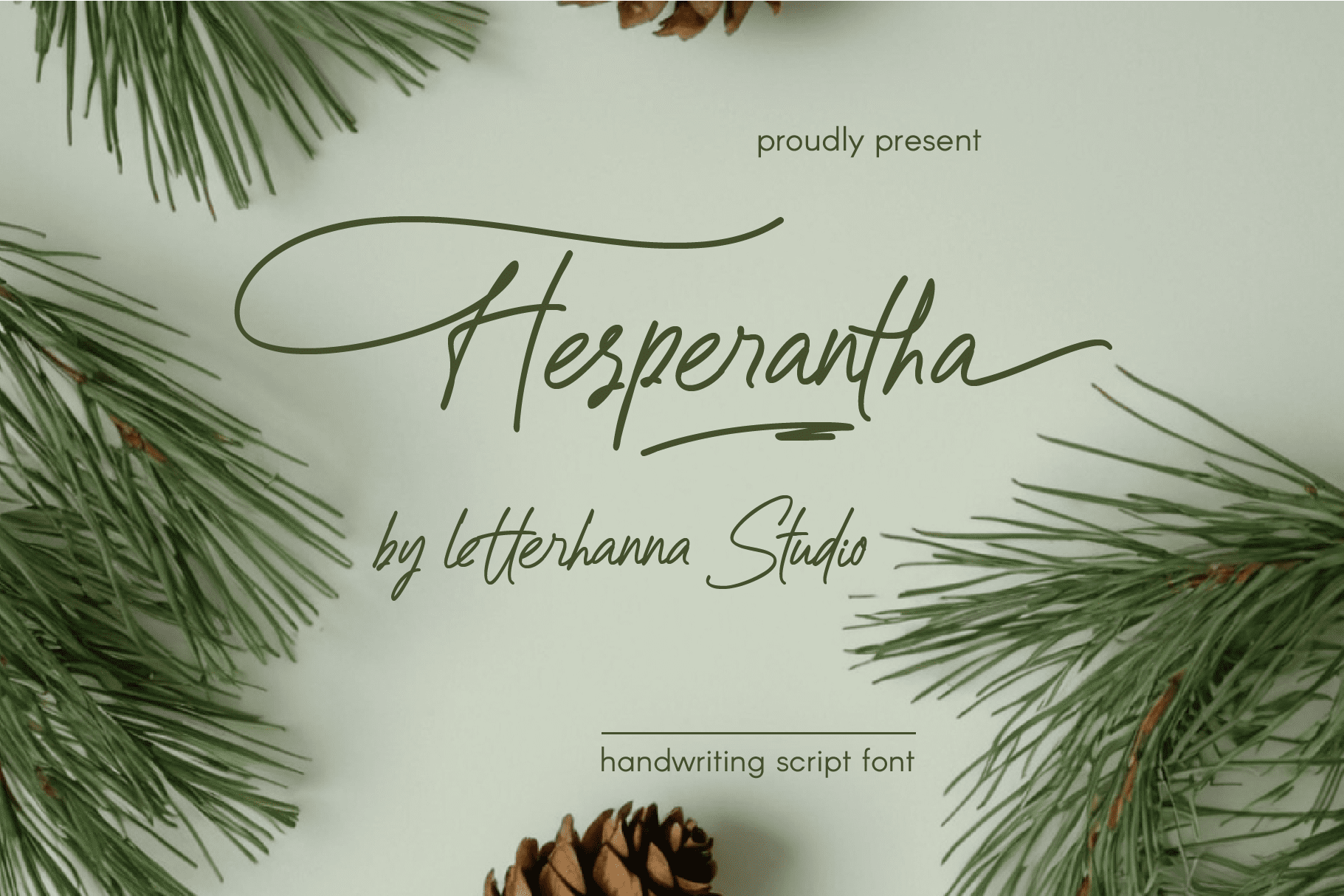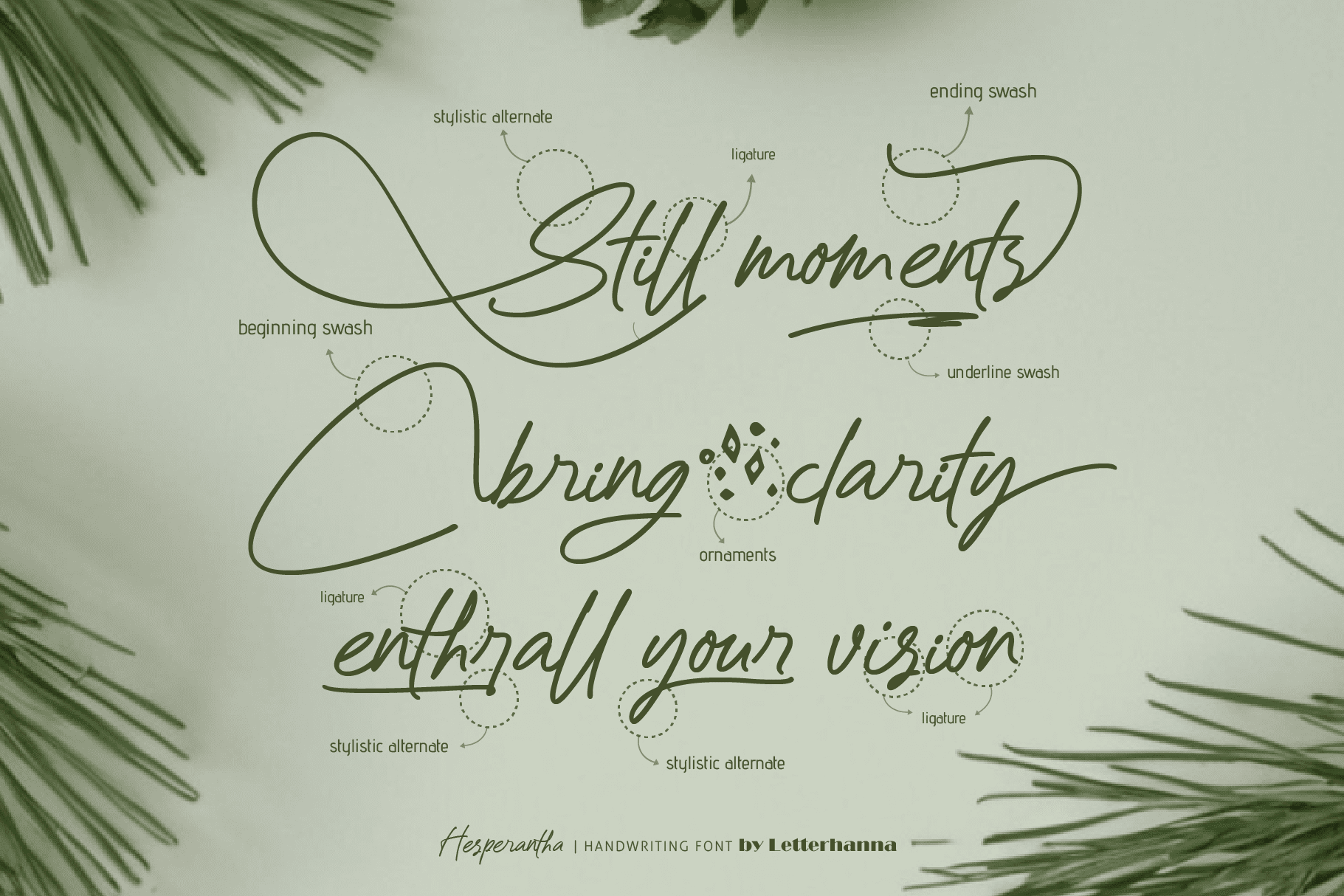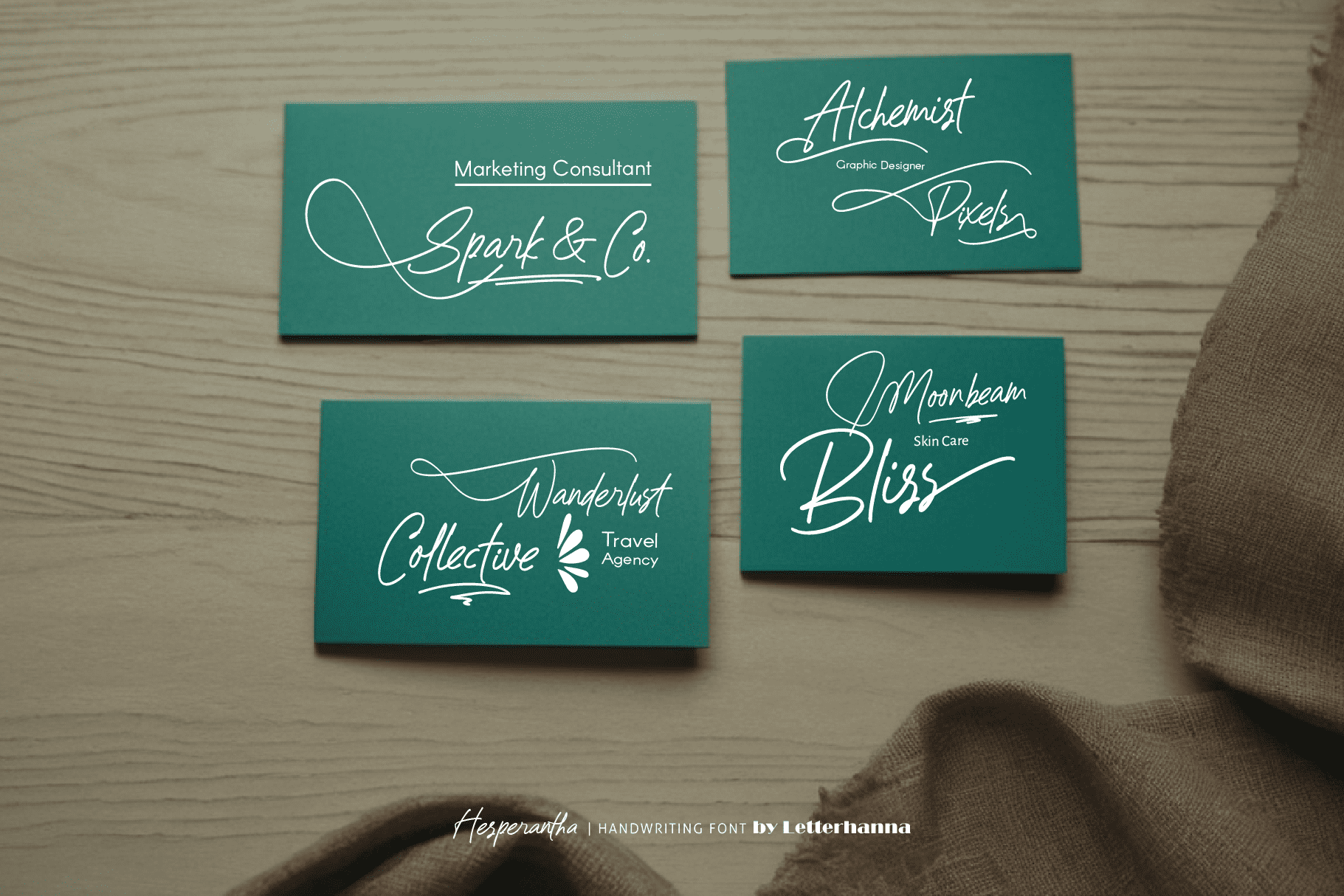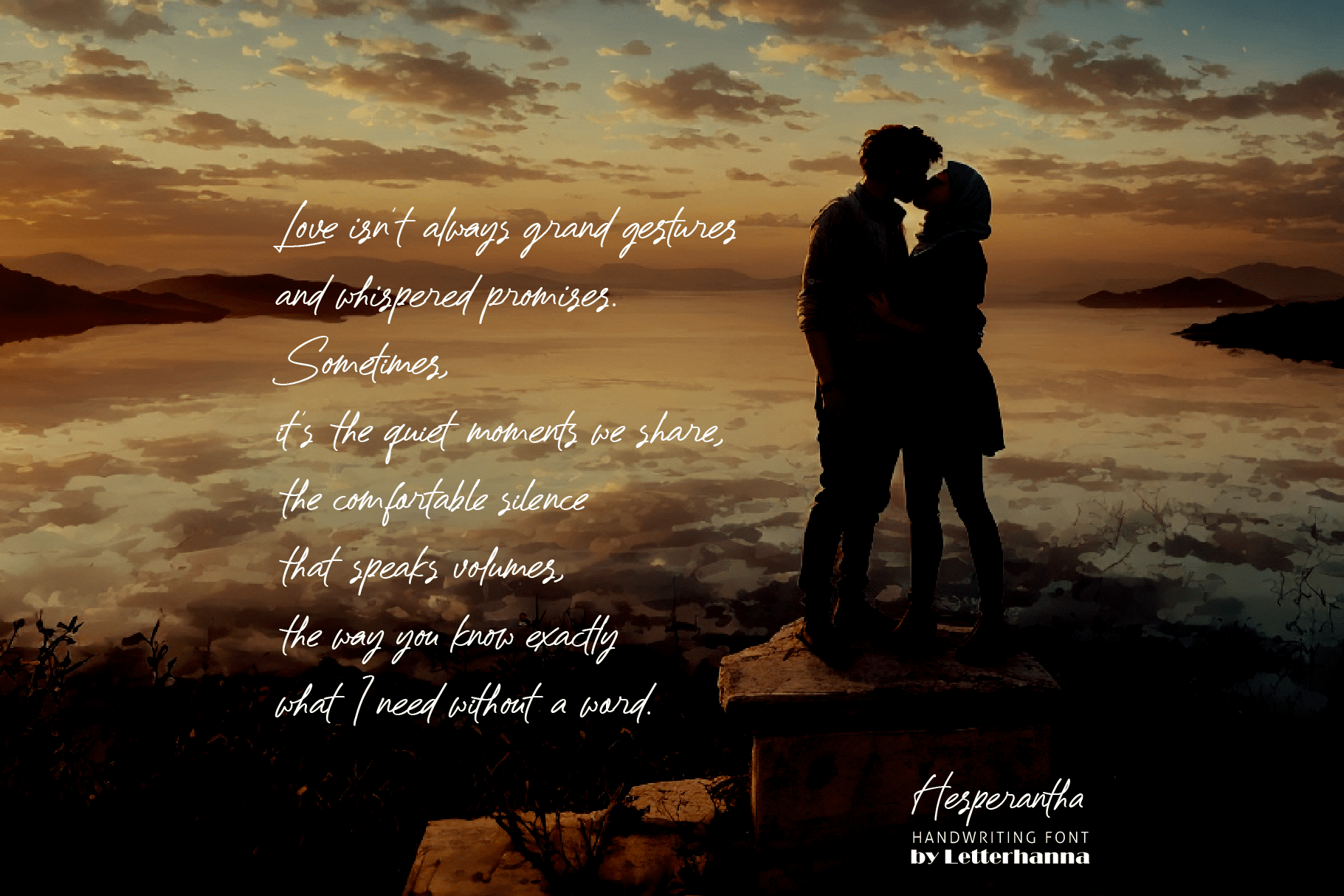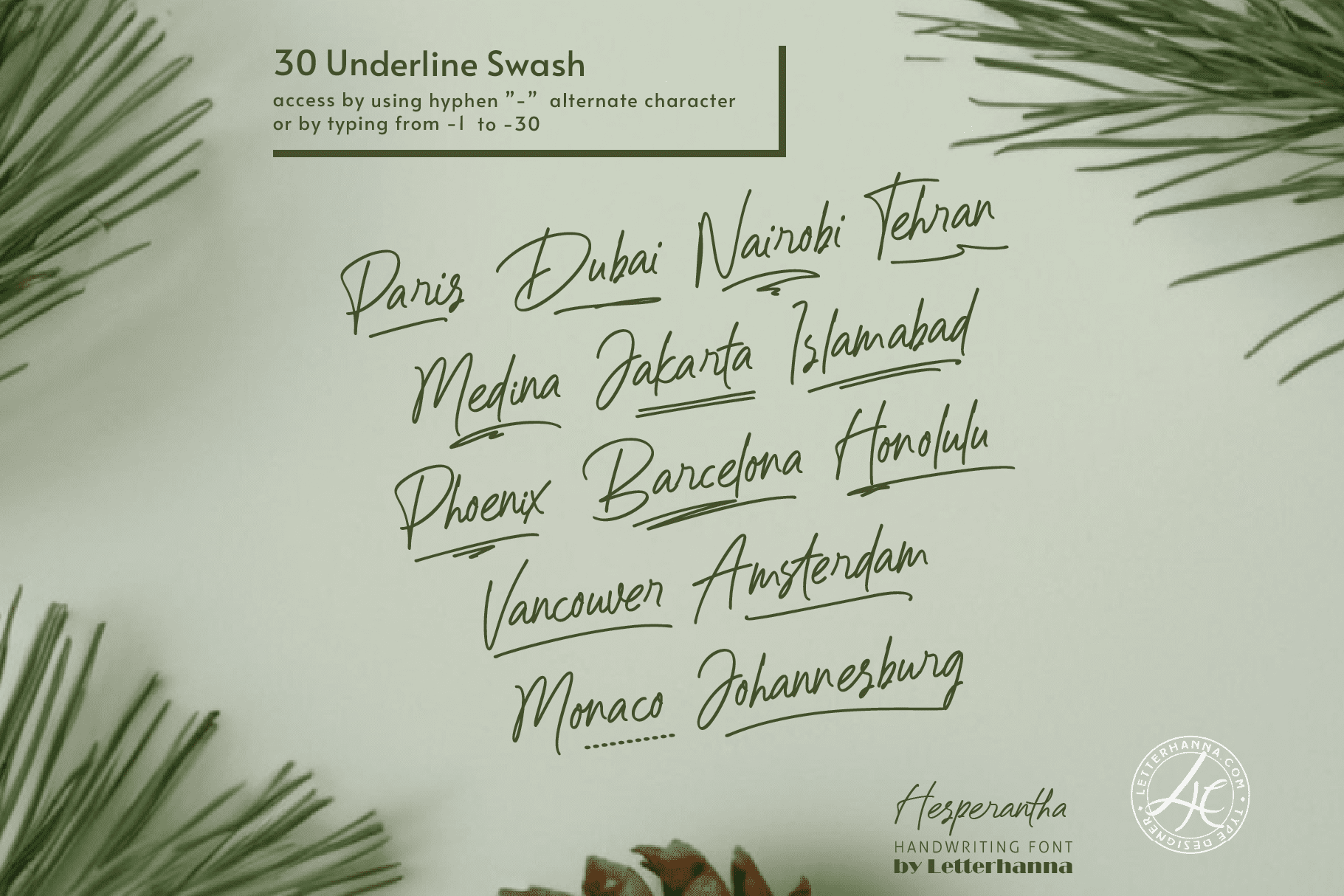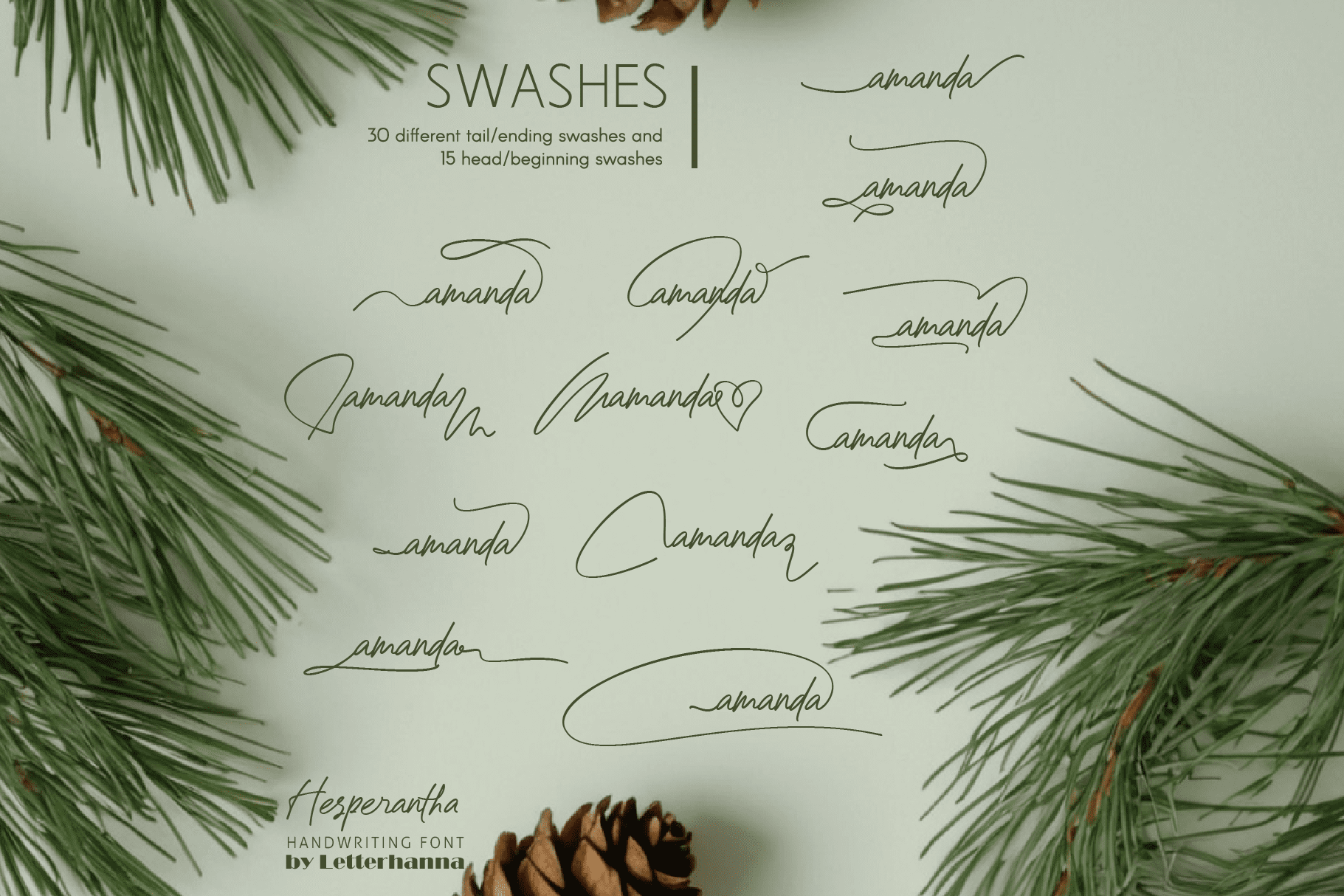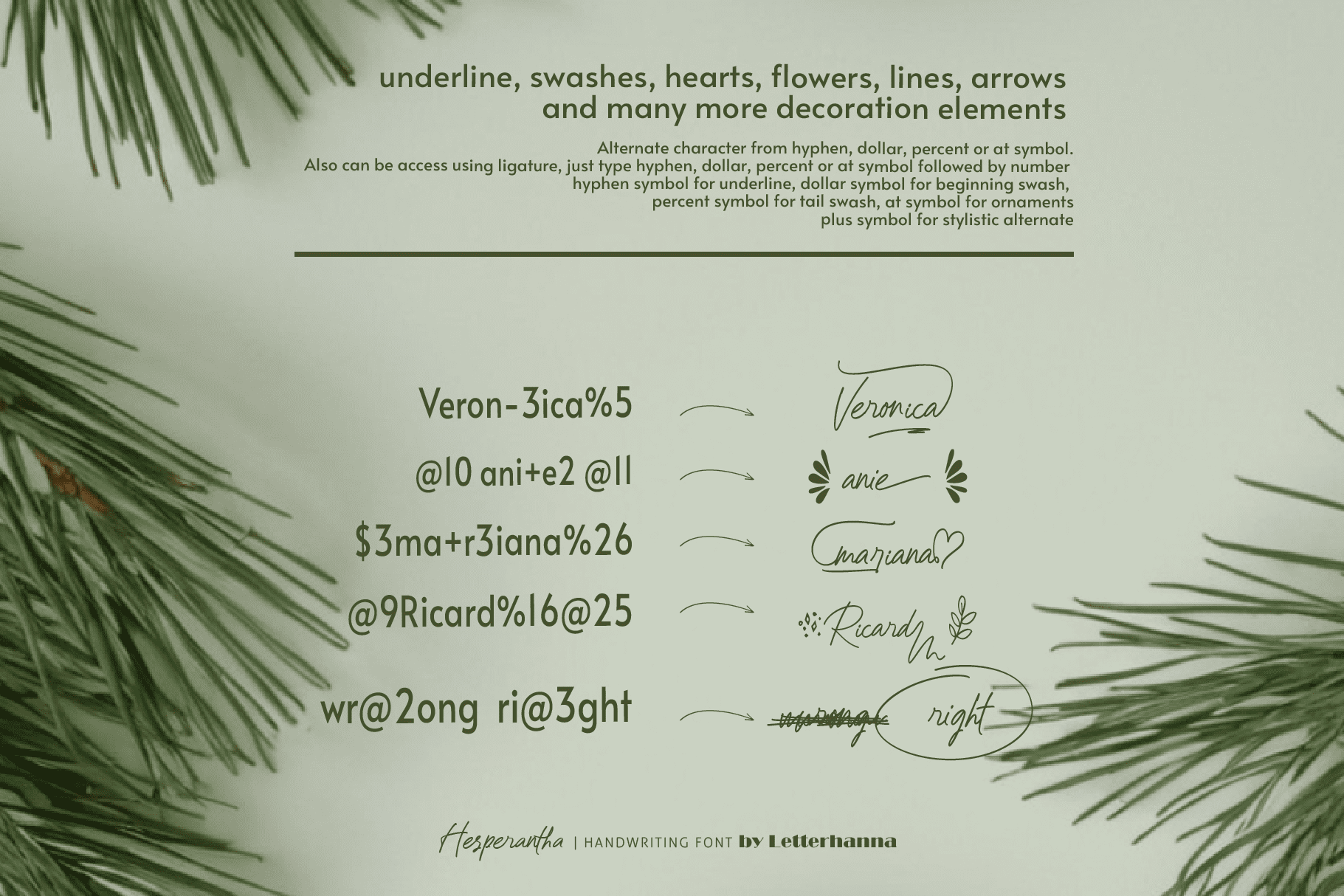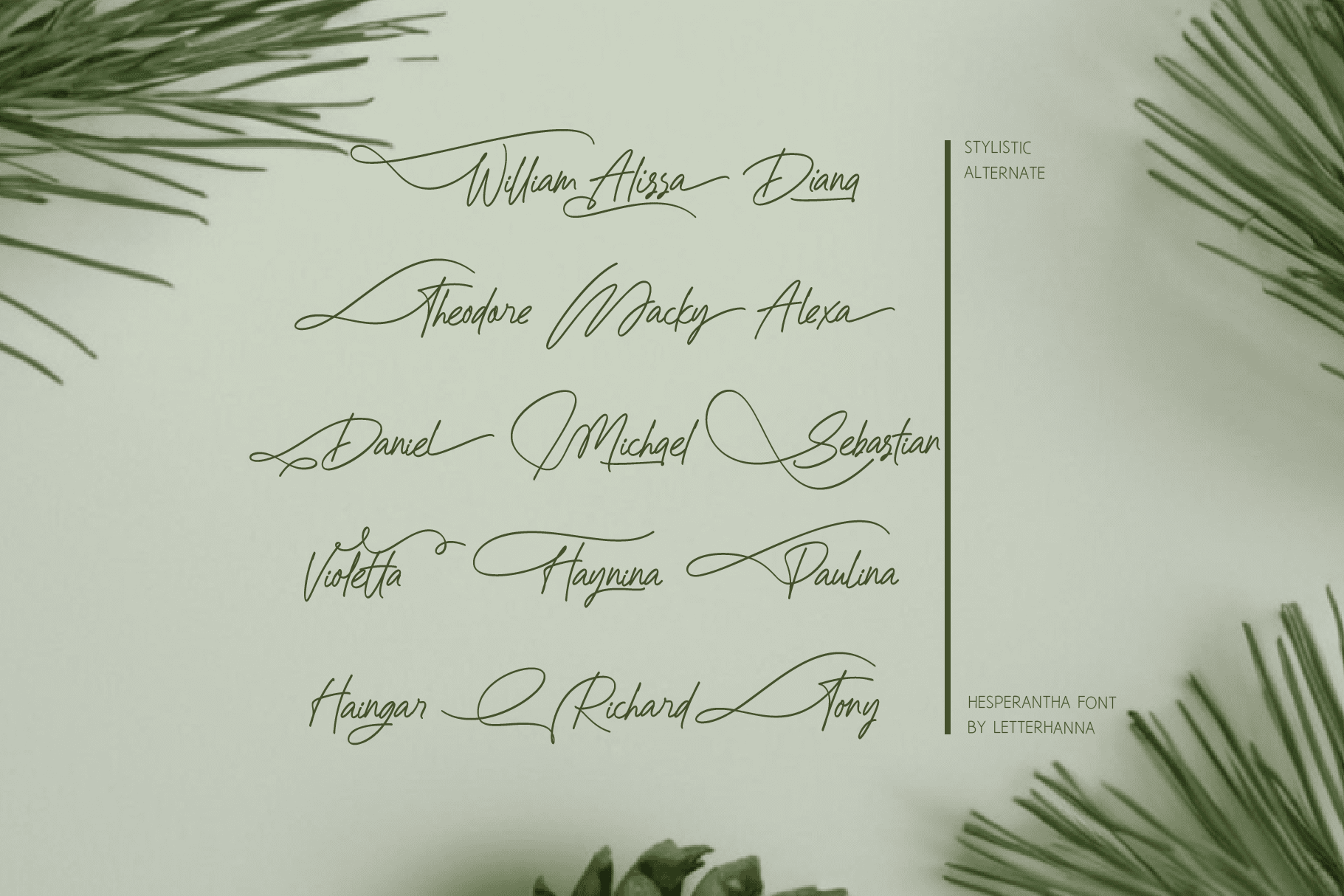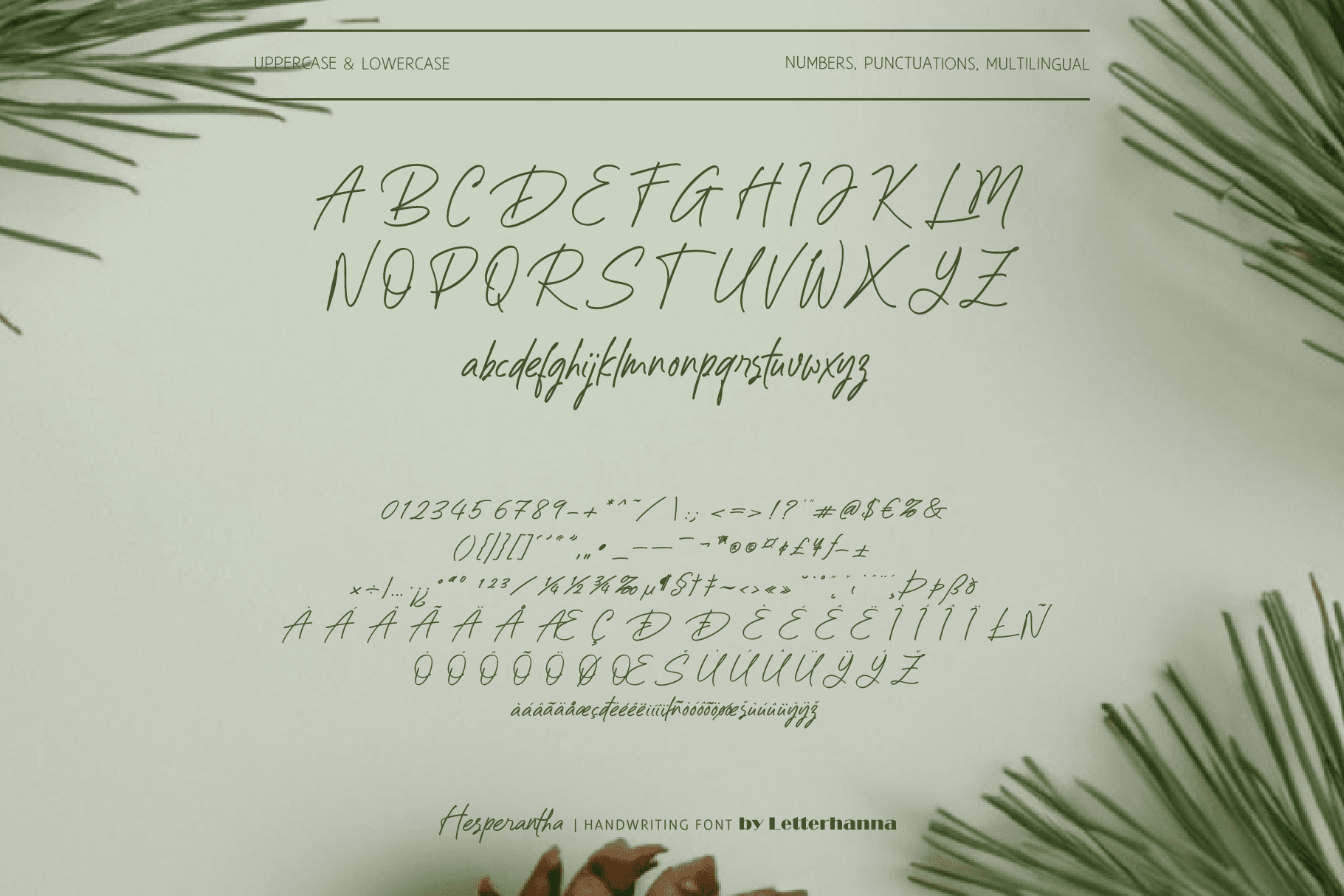
Introducing Hesperantha, a new handwritten script font that captures the essence of elegance and informality. Inspired by the delicate beauty of the Hesperantha flower, this font boasts graceful curves and subtle variations in stroke weight, reminiscent of a well-practiced penmanship.
Hesperantha is perfect for adding a touch of personality to your projects. Whether you’re crafting wedding invitations, designing heartfelt letters, or personalizing social media posts, this font injects a warmth and sincerity that resonates with the reader. Let Hesperantha elevate your words and bring a touch of handwritten charm to your creative endeavors.
Gain easy access to all alternate glyphs, swashes, ornaments, and underlines by simply using ligatures. You can try them out yourself in the font preview tool on our website, letterhanna.com.
Accessing Stylistic Alternates
Stylistic alternates can be accessed by typing a plus symbol “+” in front of the original letter. For example, type “+a” to get the stylistic alternate of the letter a.
- Underline Swashes: Use a hyphen symbol “-” followed by a number between 1 and 30. For example, type “-3”, “-22”, or “-17” to get various underline swashes.
- Head/Beginning Swashes: Use a dollar sign “$” followed by a number between 1 and 9. For example, type “$2” or “$8” to get different head/beginning swashes.
- Tail/Ending Swashes: Use a percent sign “%” followed by a number between 1 and 30. For example, type “%3” or “%15” to get various tail/ending swashes.
- Ornaments: Use an “at” symbol “@” followed by a number between 1 and 26. For example, type “@4” or “@13” to get different ornaments.
PUA Encoding for Ease of Use. Hesperantha Font is also PUA encoded, which means you can access all the glyphs and swashes with ease!